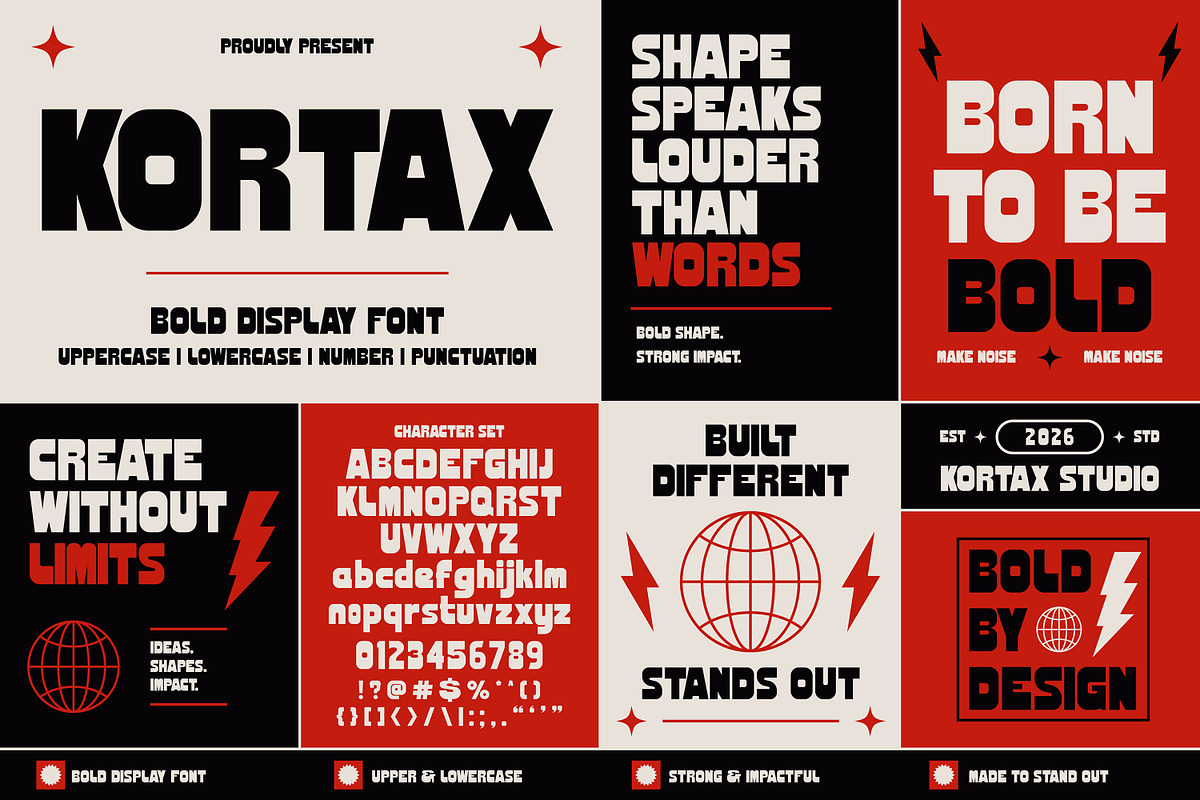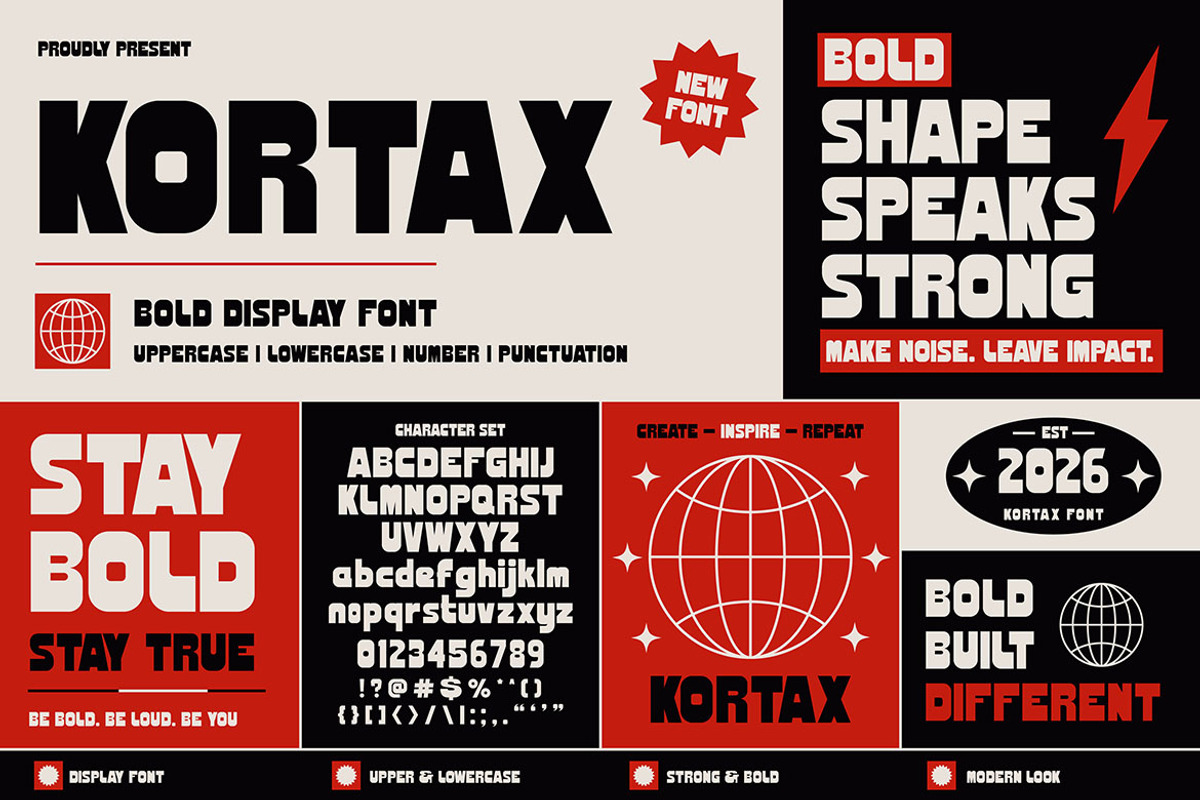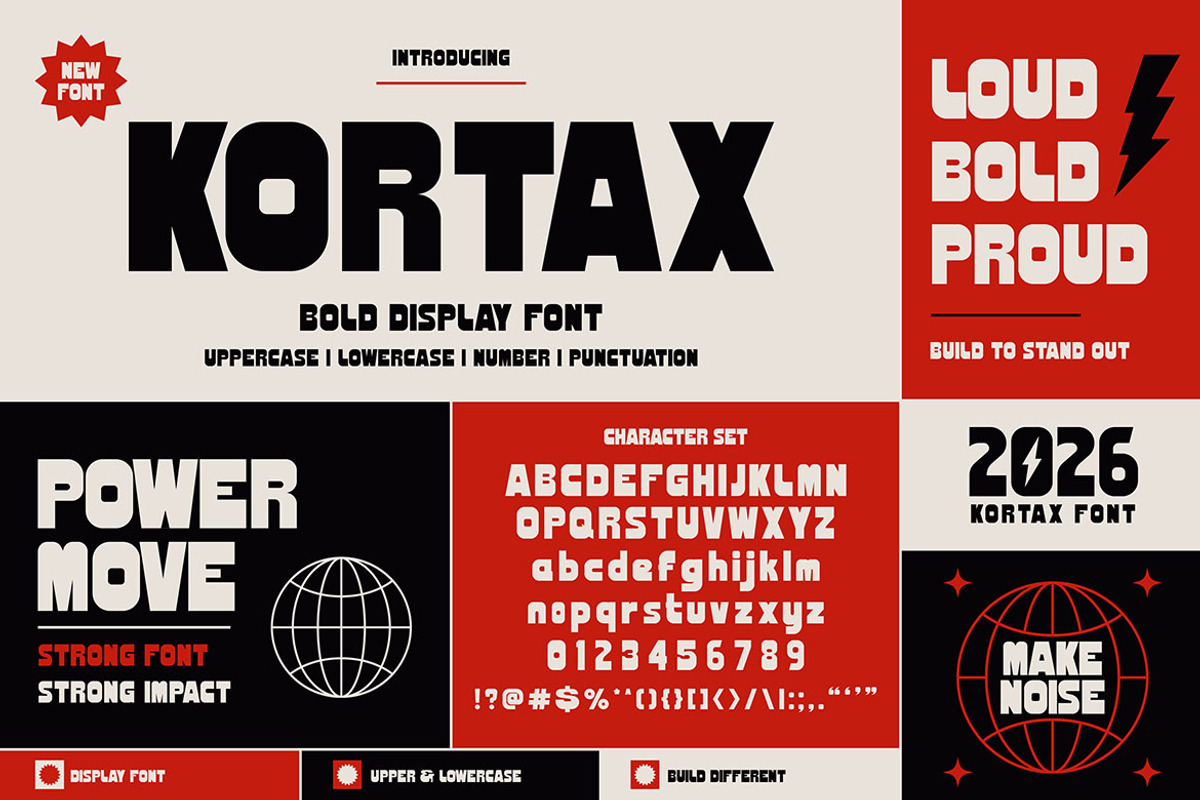
Kortax - Bold Urban Display Typeface
Kortax is a bold display font built to make a strong statement with powerful geometric shapes, compact proportions, and a modern high-impact style. Featuring uppercase, lowercase, numbers, and punctuation, Kortax delivers a confident and energetic visual presence for bold typography projects. Its heavy block structure and distinctive character make it perfect for creating memorable headlines, branding, posters, sports graphics, and contemporary visual identities.
Bold poster and headline designs
Branding and logo projects
Sports, gaming, and streetwear visuals
Editorial covers and promotional graphics
Merchandise and social media content
Kortax is a powerful display typeface designed for creators who want their designs to feel bold, modern, and impossible to ignore.